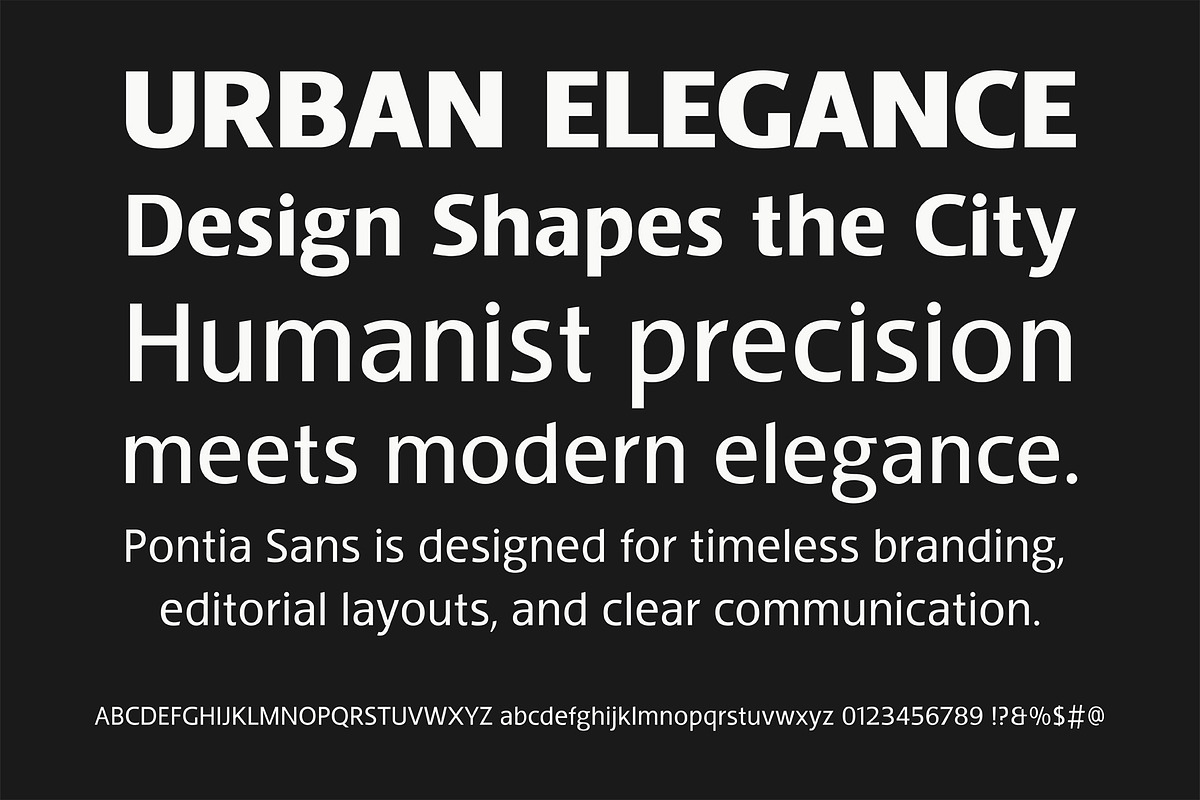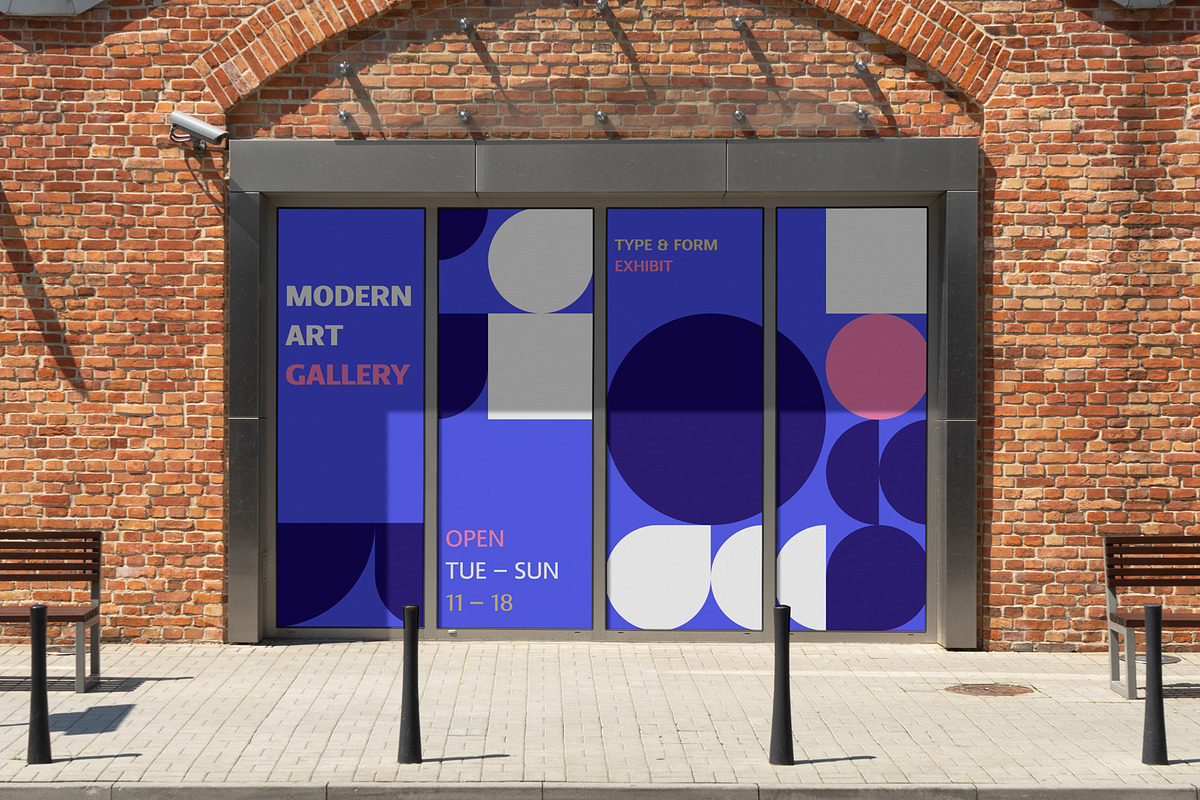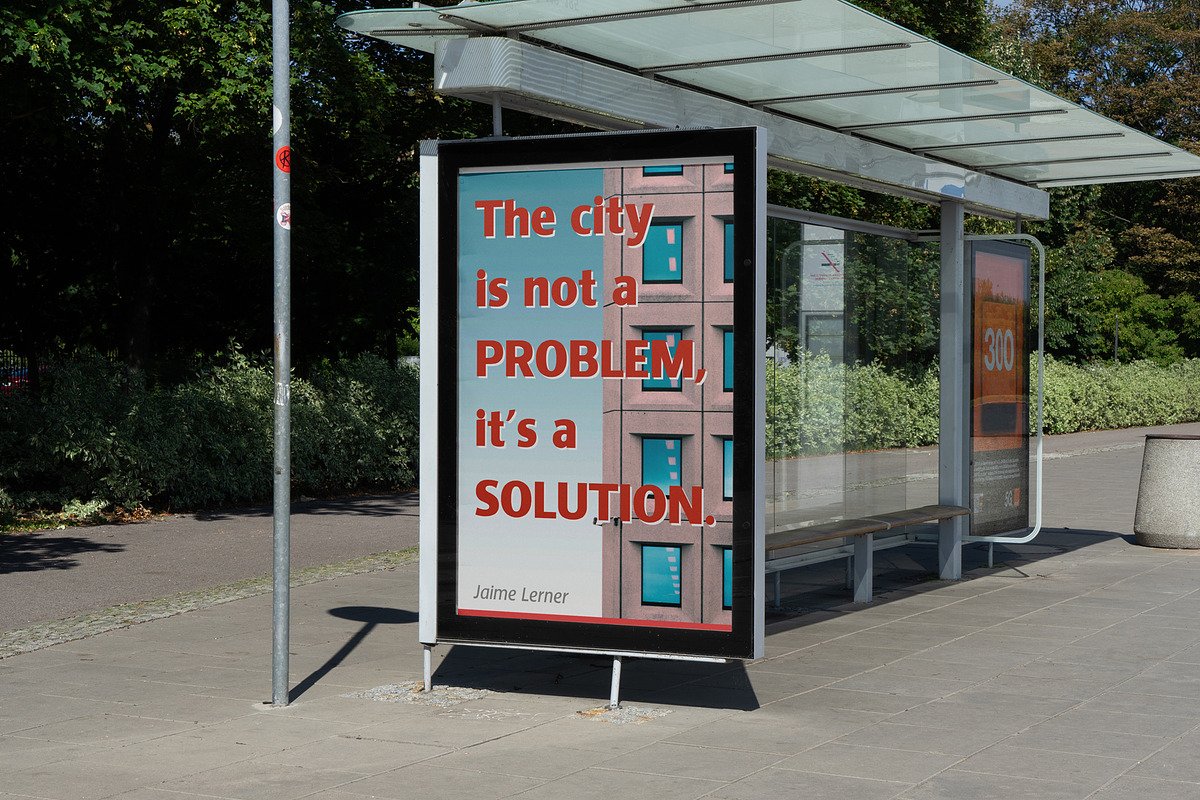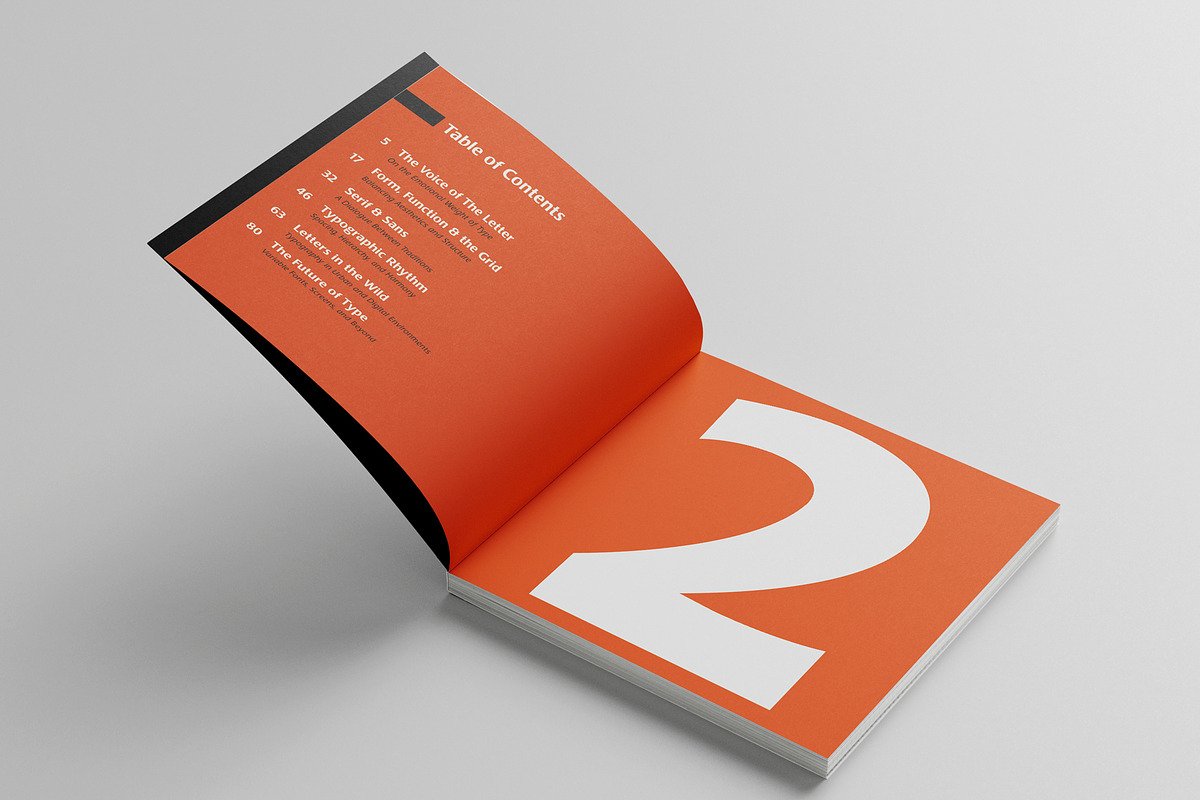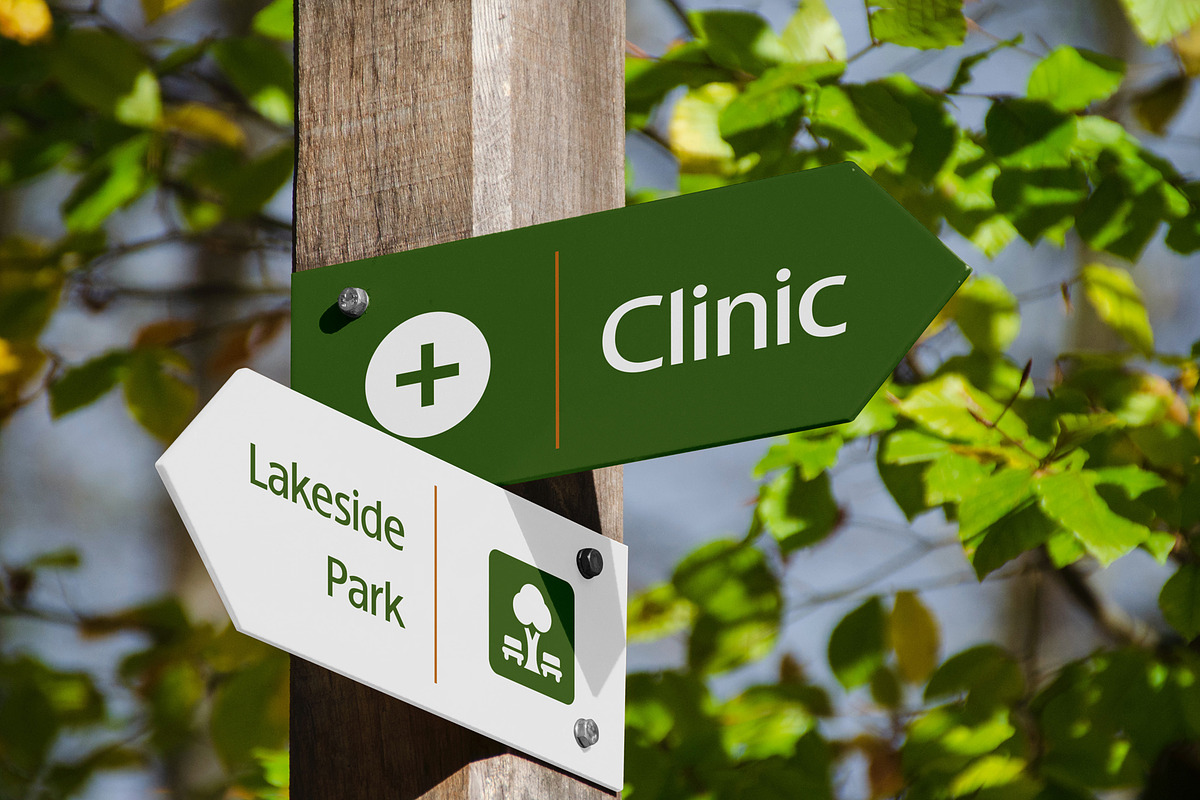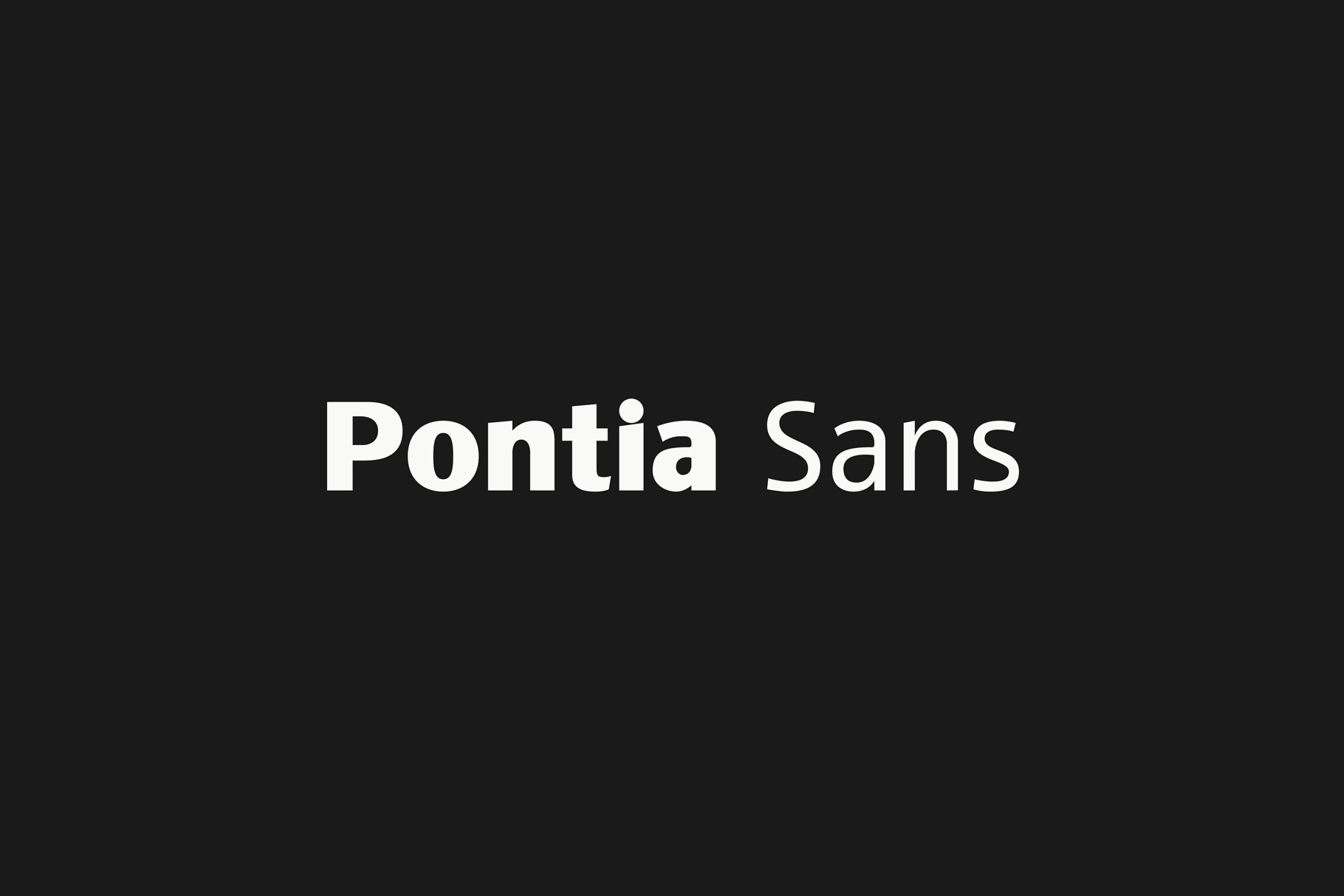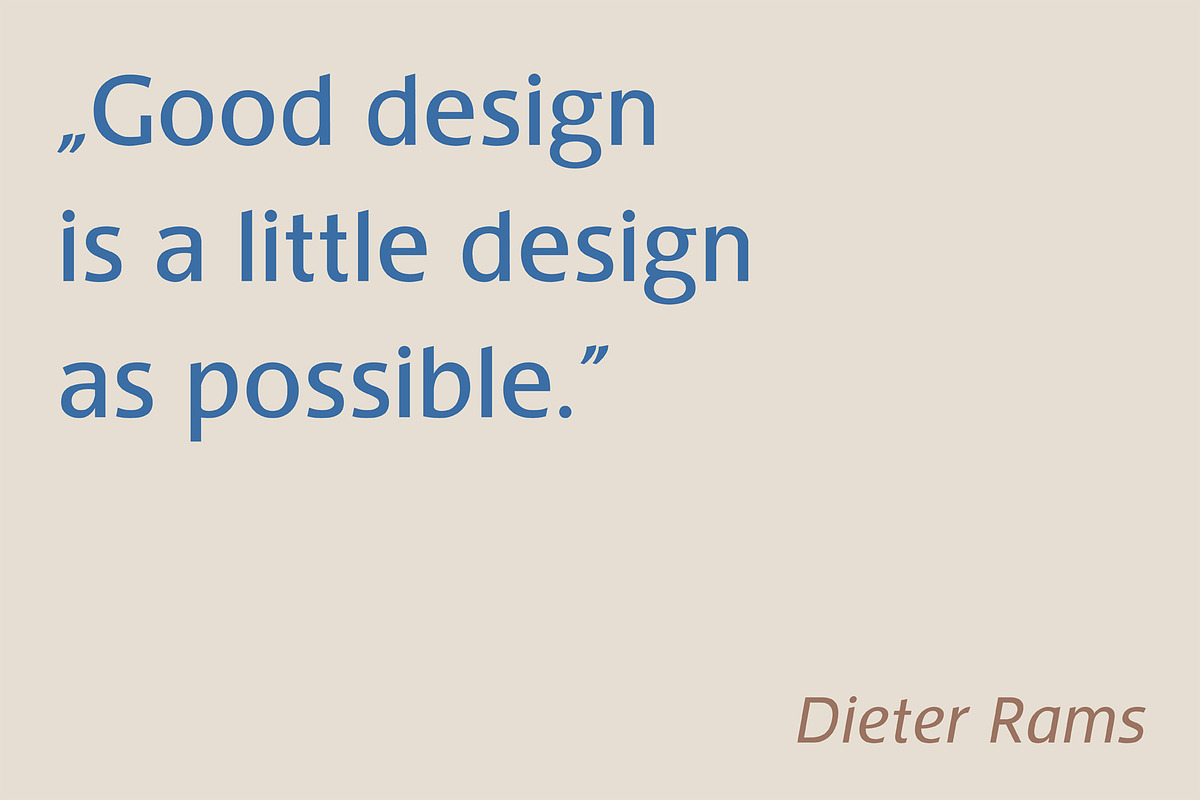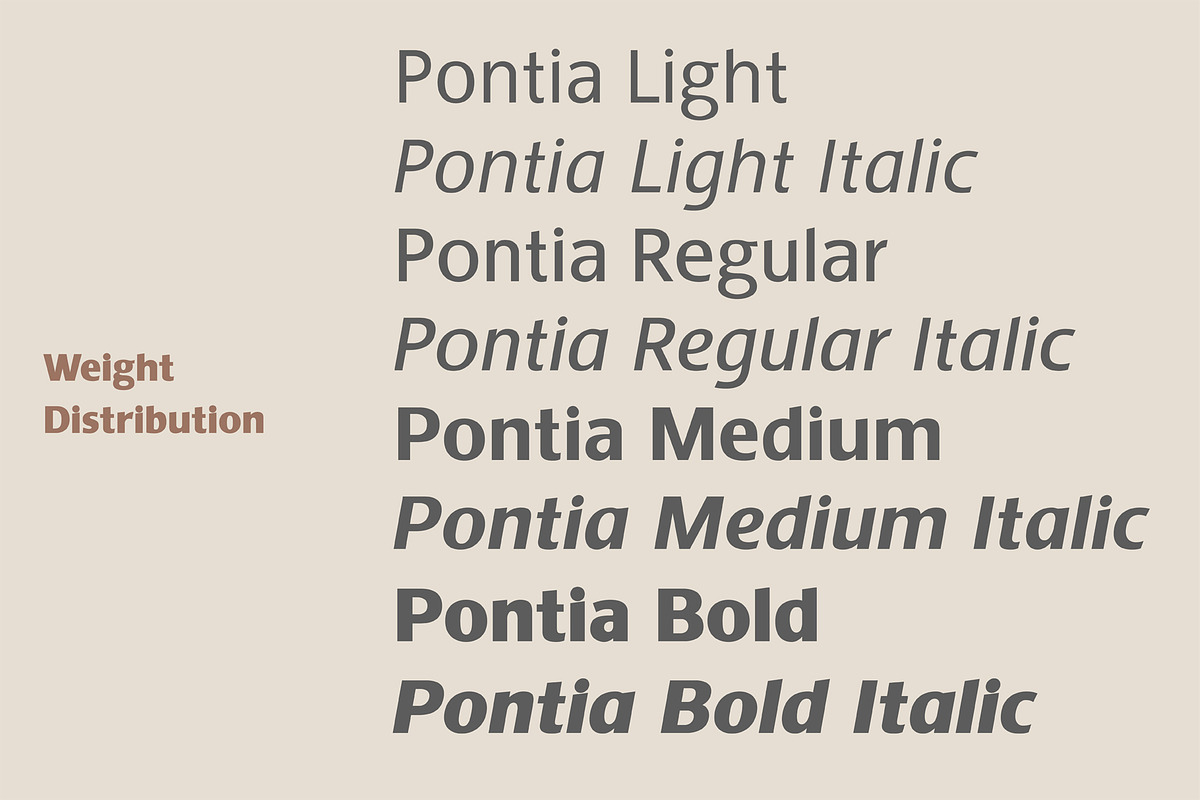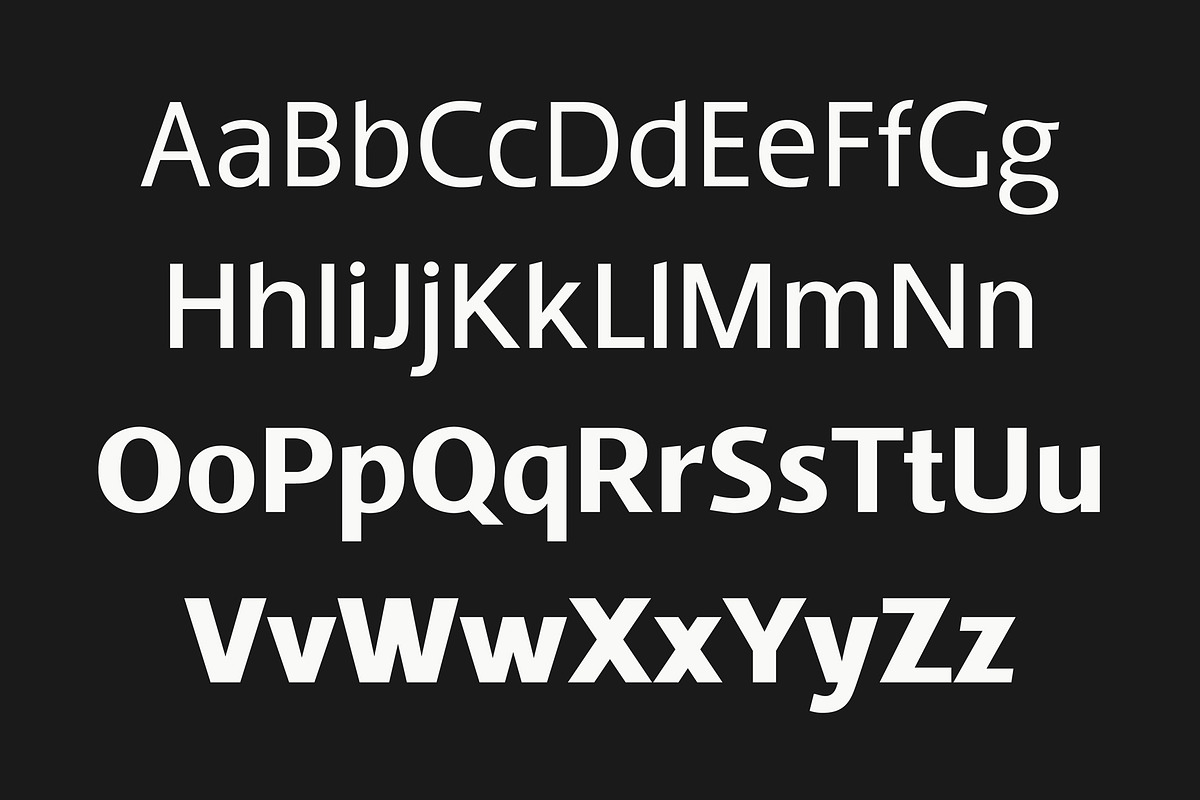
Pontia Sans Font Family
Pontia Sans is a clean, modern sans-serif typeface with a touch of warmth and personality. Inspired by the clarity of mid-century grotesques and the soft elegance of humanist letterforms, Pontia offers excellent readability across weights — from Light to Bold.
Pontia Sans is a modern humanist grotesque typeface that blends the precision of geometric shapes with a subtle, organic rhythm. Neutral yet full of character, it works beautifully for both minimalist branding and complex editorial projects. With clean lines, excellent legibility, and four carefully crafted weights, it’s a versatile tool for designers seeking elegance in simplicity.
Whether you're designing for branding, editorial layouts, user interfaces, or packaging, Pontia Sans delivers a professional yet approachable tone. Its balanced proportions and subtle details make it versatile for both display and text use.
– 4 weights: Light / Regular / Medium / Bold (+ 4 italics)
– Uppercase & lowercase letters
– Designed for web and print
Multilingual support:
ÀÁÂÃÄÅĀ Æ Ç ÈÉÊËĒ ÌÍÎÏĪ Ð Ñ ÒÓÔÕÖŒØ ÙÚÛÜ ỲÝŶŸ Þß
àáâãäåā æ ç èéêëē ìíîïī ð ñ òóôõöœø ùúûü ỳýŷÿ þ
Give your next project a modern, timeless feel with Pontia Sans — crafted with precision and designed to stand out without shouting.